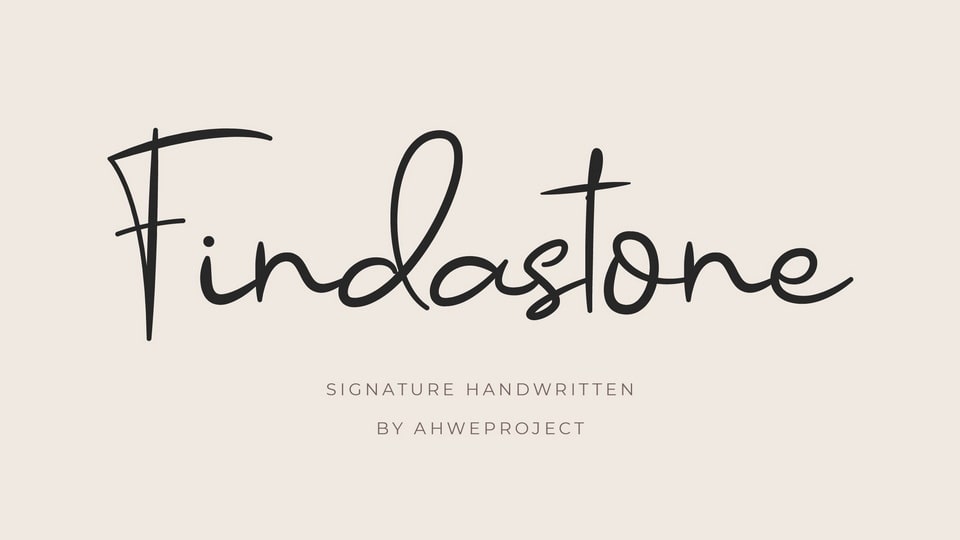
Download Findastone font, a delicate and fine script typeface. Findastone can be applied to a variety of design ideas, from invitations, to cards and pretty much anything that requires a lovely touch.